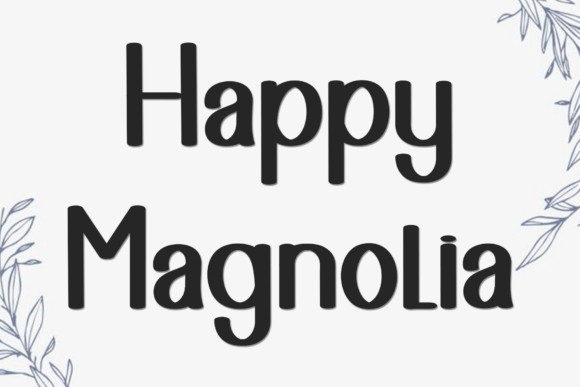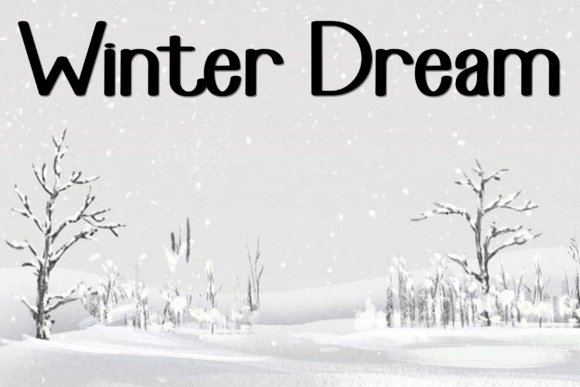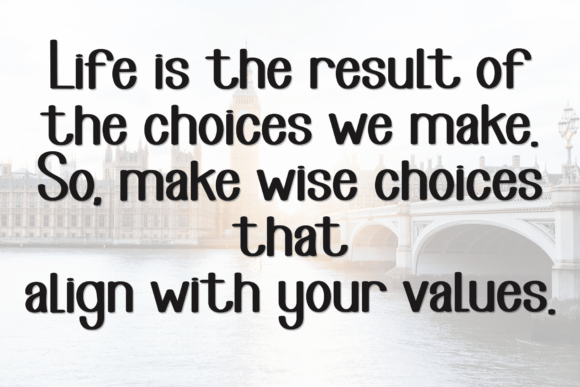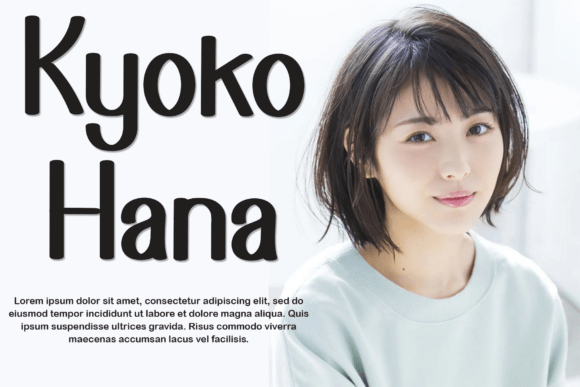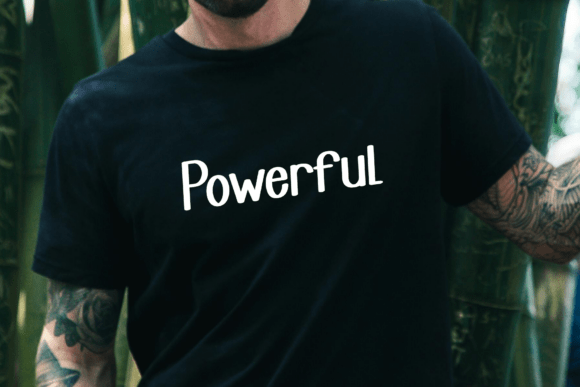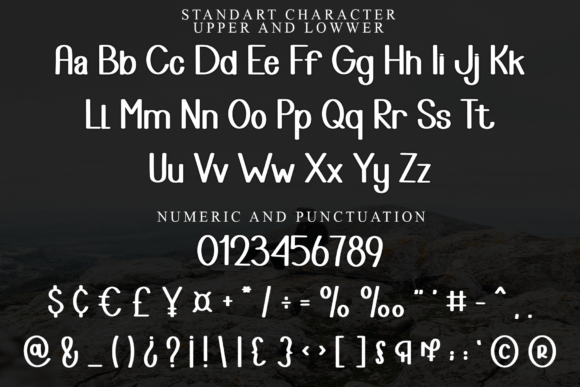
Introducing Apple Caramel Font: A Deliciously Unique Design Element
Are you tired of using the same old fonts in your design projects? Look no further than the Apple Caramel Font, a beautiful and eye-catching typeface that’s sure to add a touch of sweetness to your creations. Designed with a soft, unique touch, this font is perfect for designers, crafters, and artists looking to add some personality to their work.
A Font that Stands Out from the Crowd
The Apple Caramel Font is a distinctive and versatile typeface that’s sure to make your designs stand out from the crowd. Its soft, rounded edges and unique strokes give it a special character that’s both meaningful and visually appealing. Whether you’re working on a design project, crafting a handmade card, or creating a work of art, this font is perfect for adding a personal touch.
Key Features of Apple Caramel Font
- Unique and eye-catching design: The Apple Caramel Font has a distinctive style that’s sure to grab attention.
- Soft and rounded edges: The font’s soft edges give it a warm and inviting feel.
- Variety of characters: The font includes a range of characters, making it perfect for design projects, crafts, and other creative works.
The Apple Caramel Font is perfect for a wide range of design projects, from handmade cards and invitations to branding and advertising materials. Its unique and eye-catching design makes it ideal for crafts, such as scrapbooking, journaling, and other paper crafts. The font’s soft and rounded edges also make it suitable for children’s projects, such as coloring books, activity sheets, and educational materials.
Enhance Your Designs with Apple Caramel Font
Whether you’re a professional designer or a crafty hobbyist, the Apple Caramel Font is sure to enhance your designs and add a touch of personality to your work. Its versatility and compatibility make it easy to use in a wide range of applications, from digital design to print materials. With the Apple Caramel Font, you can:
- Create eye-catching headlines and titles
- Add a personal touch to your designs
- Enhance your branding and advertising materials
- Make your crafts and handmade projects stand out
Why Choose Apple Caramel Font?
So why choose the Apple Caramel Font for your design projects and crafts? Here are just a few reasons:
- Unique and distinctive design: The Apple Caramel Font has a one-of-a-kind design that’s sure to grab attention.
- Versatile: The Apple Caramel Font is perfect for a wide range of design projects, crafts, and creative works.
- High-quality: The font is designed with high-quality and clarity in mind, making it perfect for both digital and print materials.
In conclusion, the Apple Caramel Font is a deliciously unique design element that’s sure to add a touch of sweetness to your designs. With its soft, rounded edges and distinctive strokes, this font is perfect for designers, crafters, and artists looking to add some personality to their work. Its versatility, compatibility, and high-quality design make it an ideal choice for a wide range of design projects, crafts, and creative works. So why wait? Try the Apple Caramel Font today and see the difference it can make in your designs!